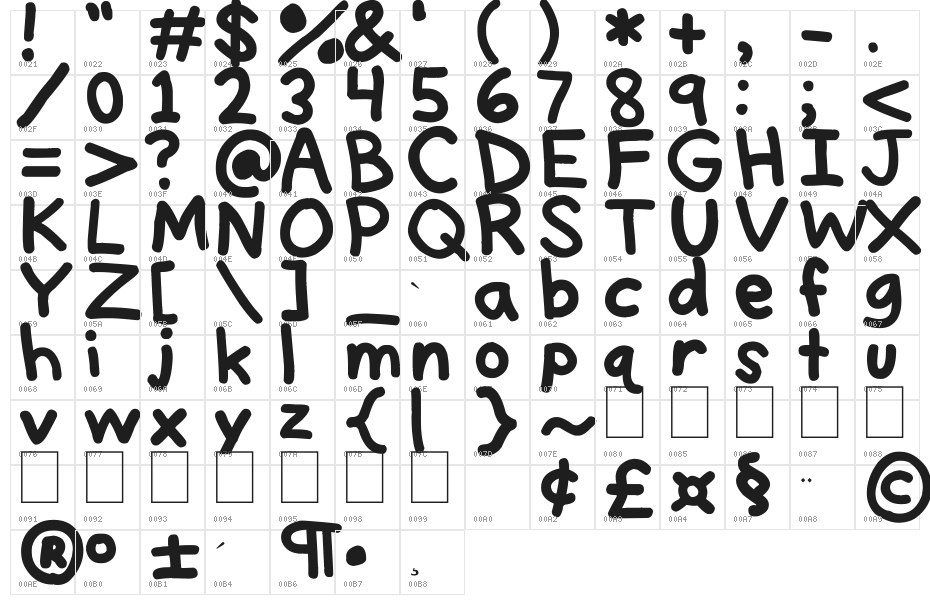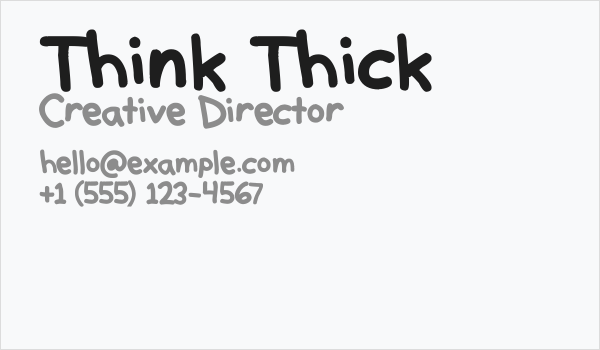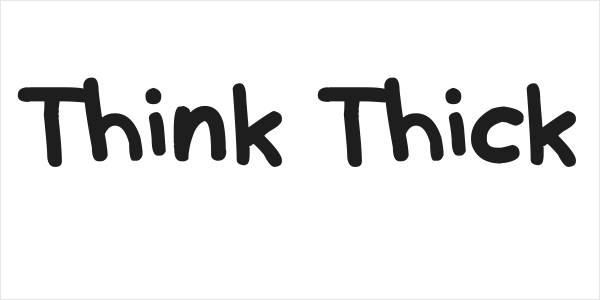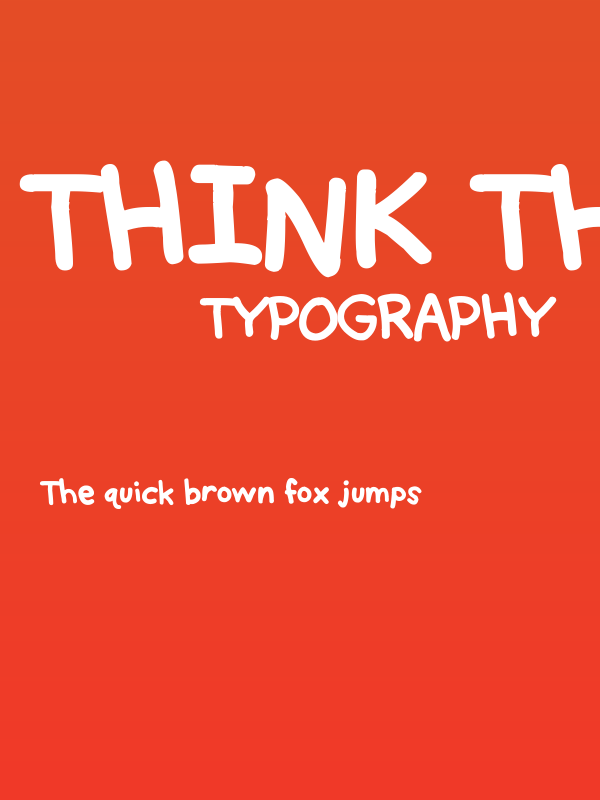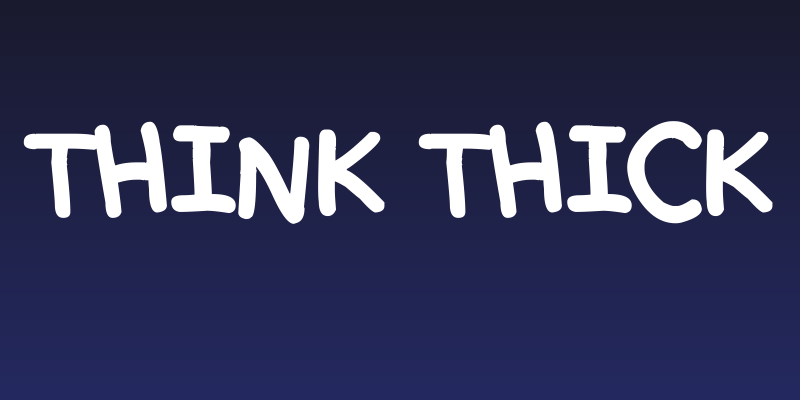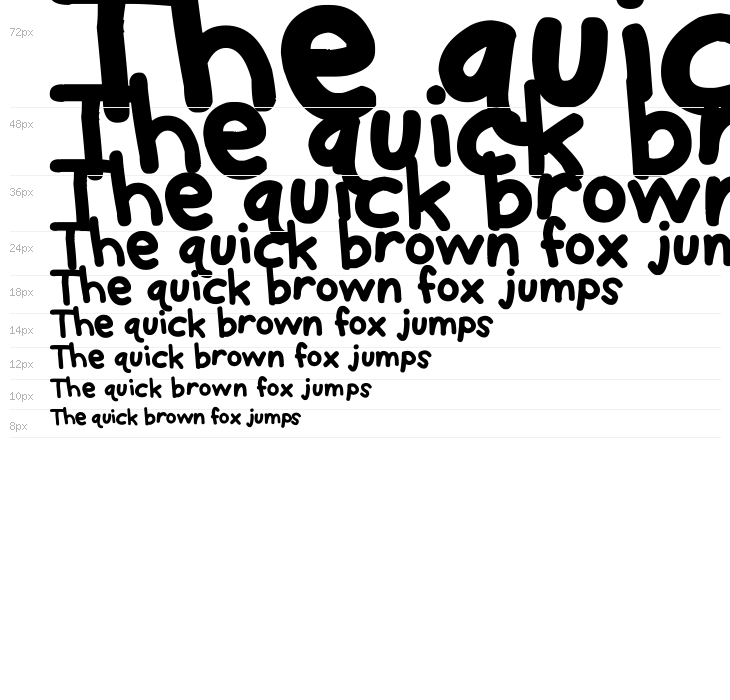
Think Thick Font
| Gesamtstil | Playful, Casual |
| Vorgeschlagene Projekte | Ideal for children's books, playful branding, casual invitations, and creative posters. |